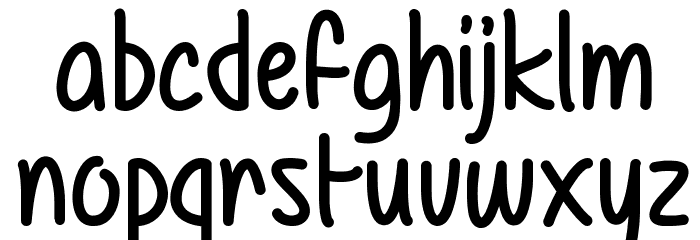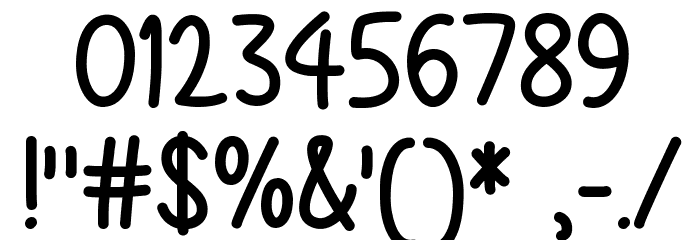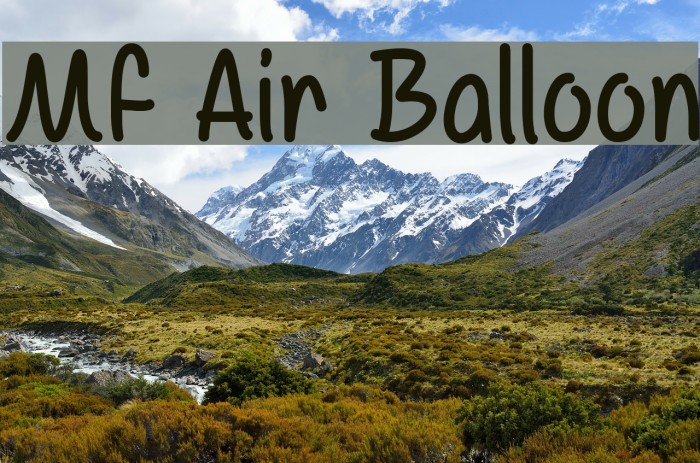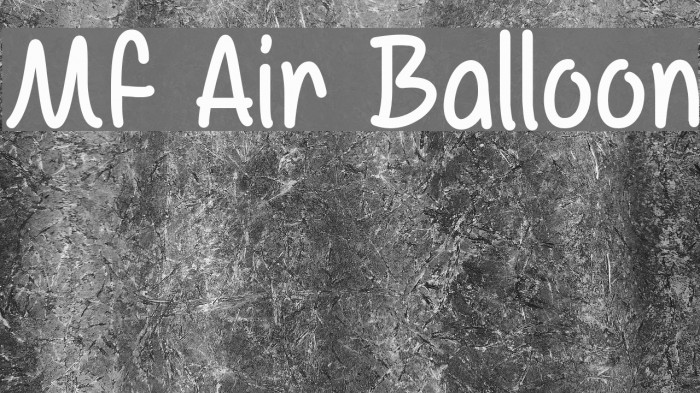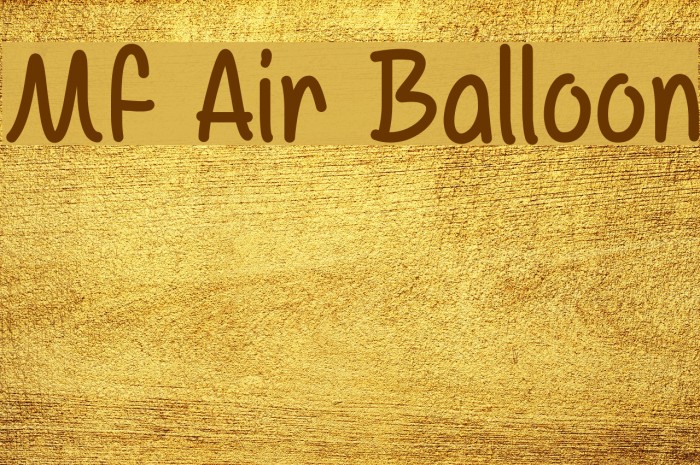
Mf Air Balloon Font
This playful and whimsical font features rounded, balloon-like characters that convey a sense of fun and lightheartedness. The letters are bold and slightly irregular, giving them a hand-drawn appearance that adds to their charm. The uppercase and lowercase letters maintain a consistent style, with smooth curves and a friendly demeanor. The numbers and special characters are equally engaging, making this font versatile for various creative projects. Its unique style is perfect for capturing attention and adding a touch of personality to any design.
A playful, balloon-like font with a hand-drawn, whimsical style.
- Proposed Projects: Ideal for children's books, party invitations, playful branding, and creative posters.
- Overall Style: Playful, Whimsical